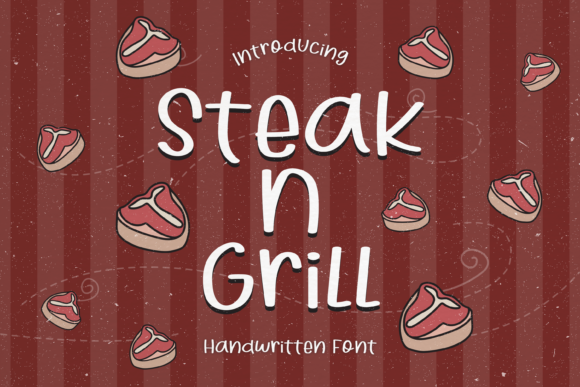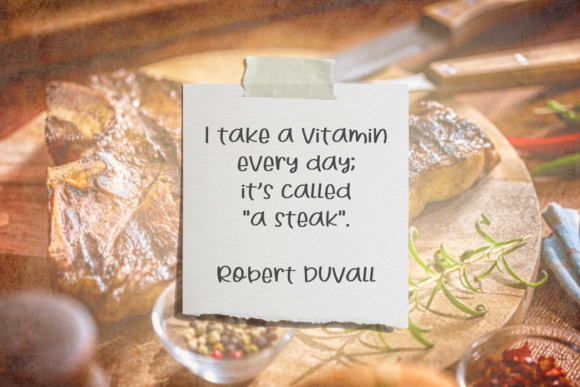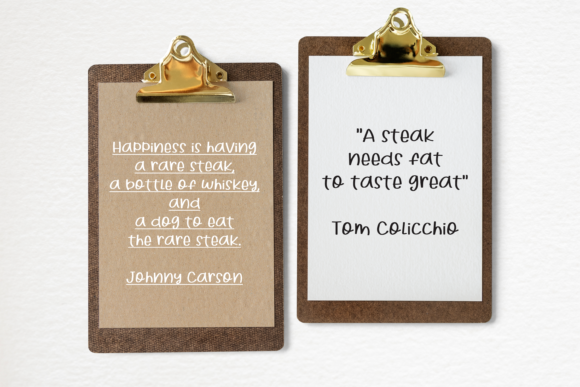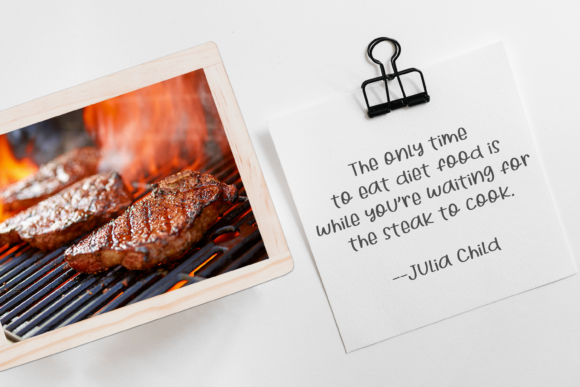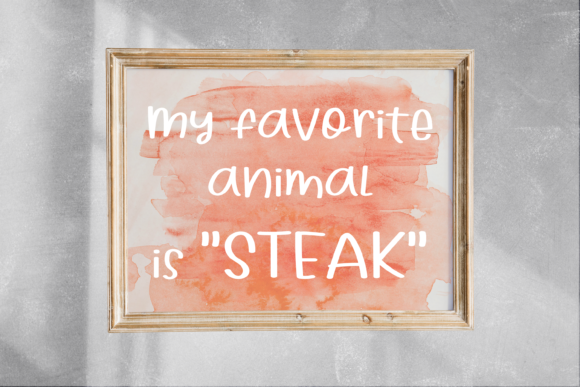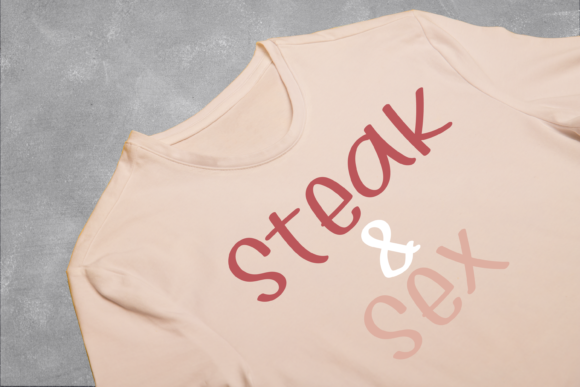
Steak N Grill Font
About Steak N Grill Font
Steak N Grill is a bouncy & quirky script font. It can easily be matched to an incredibly large set of projects, so add it to your creative ideas and notice how it makes them stand out!